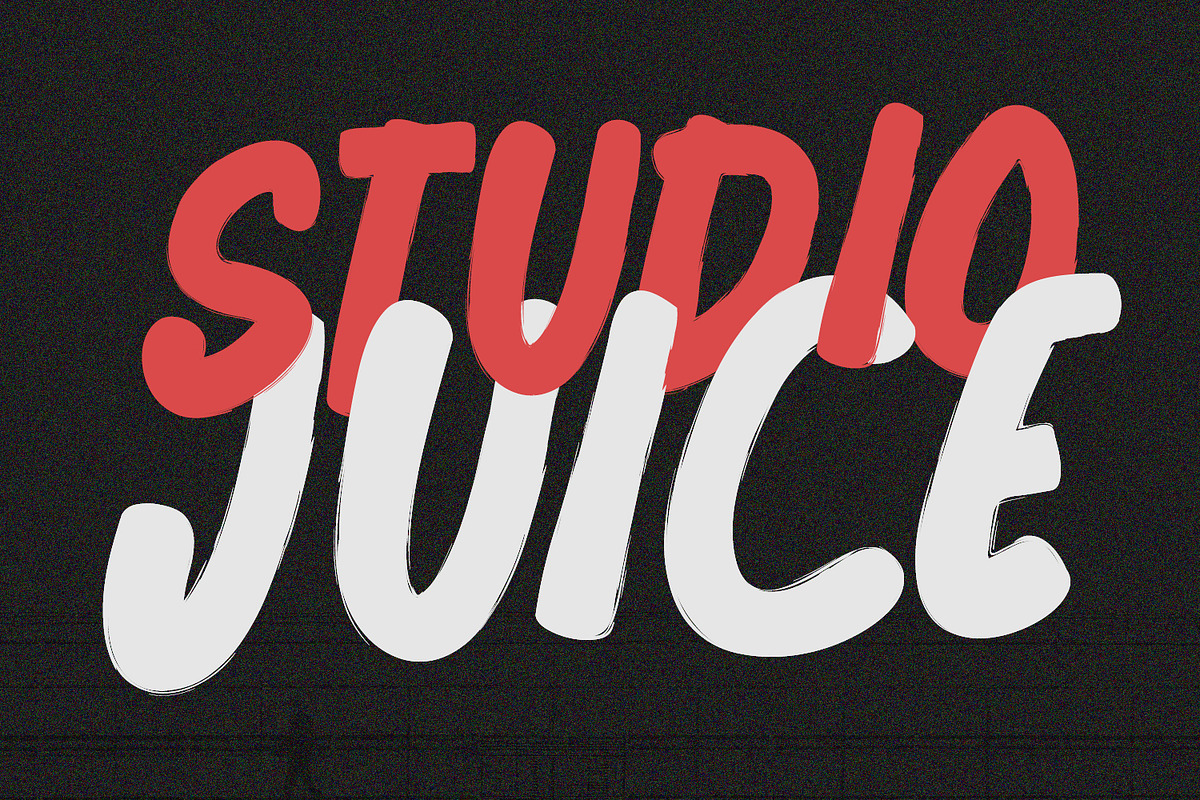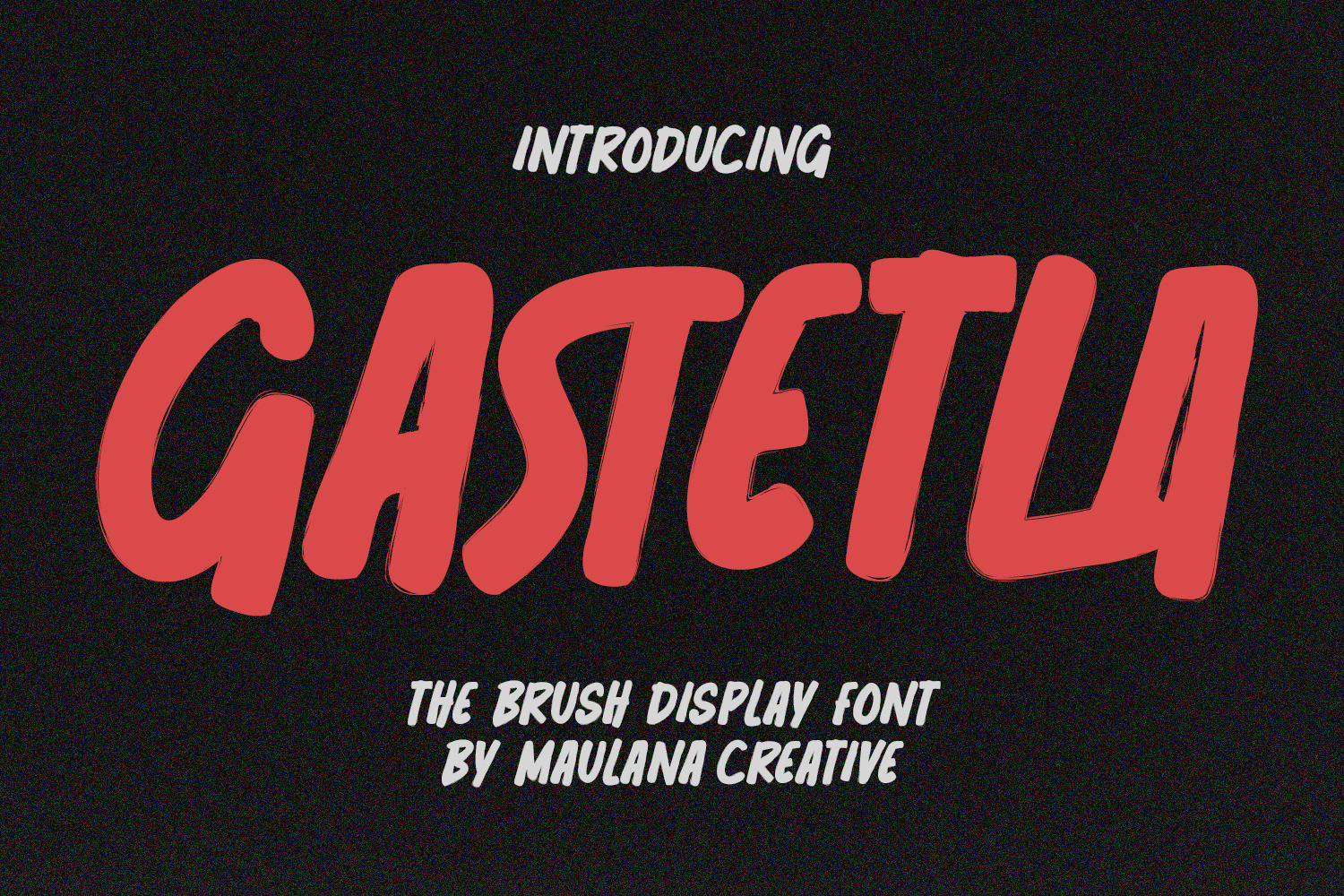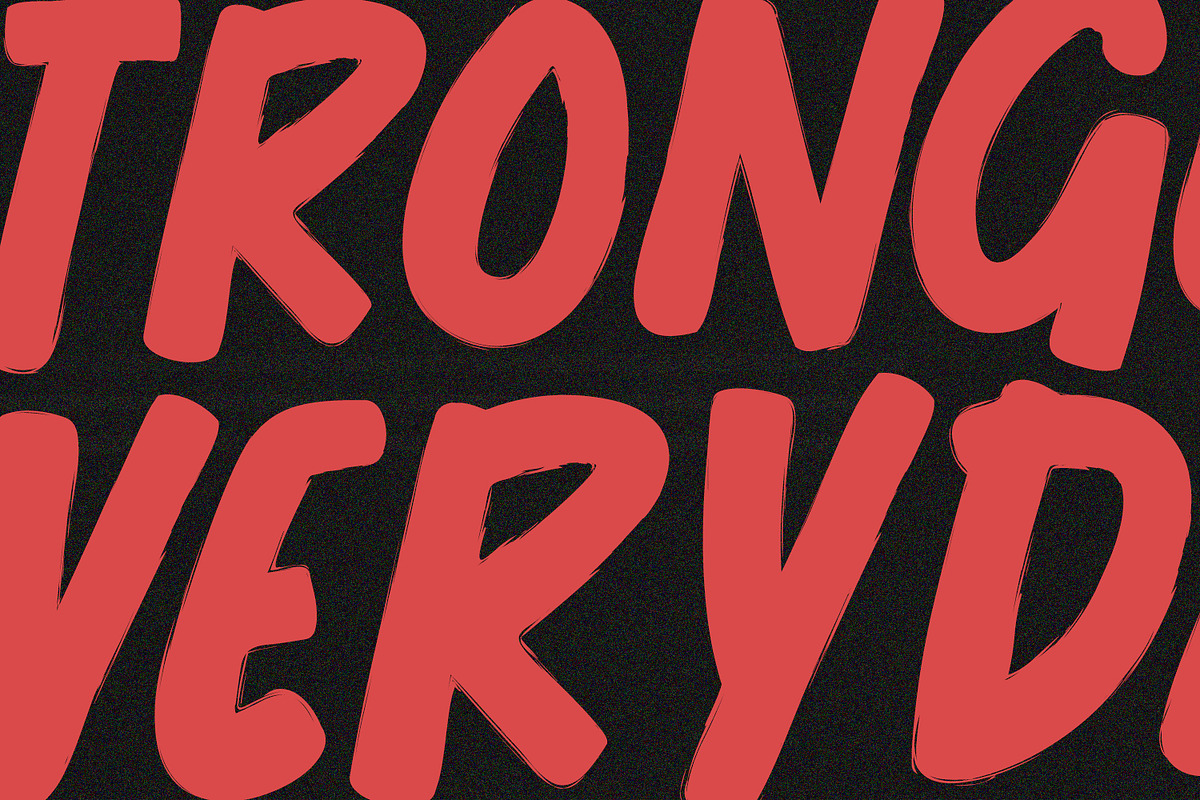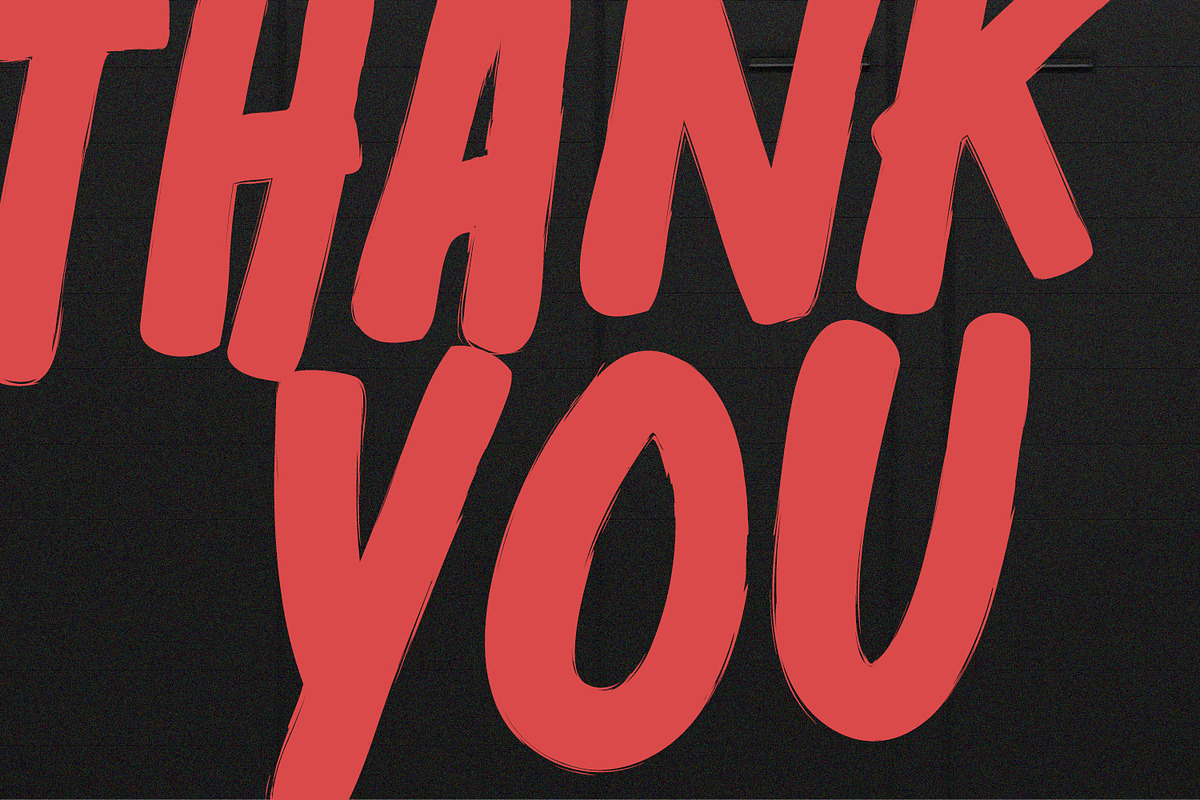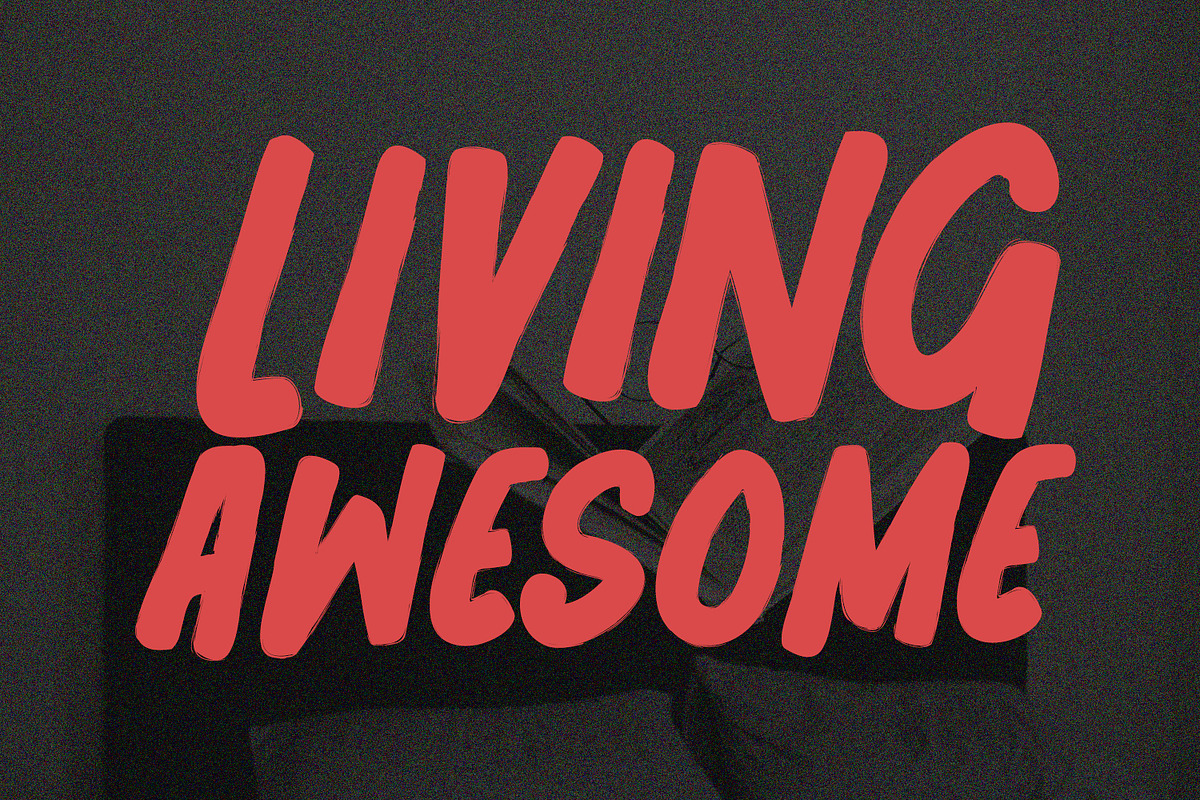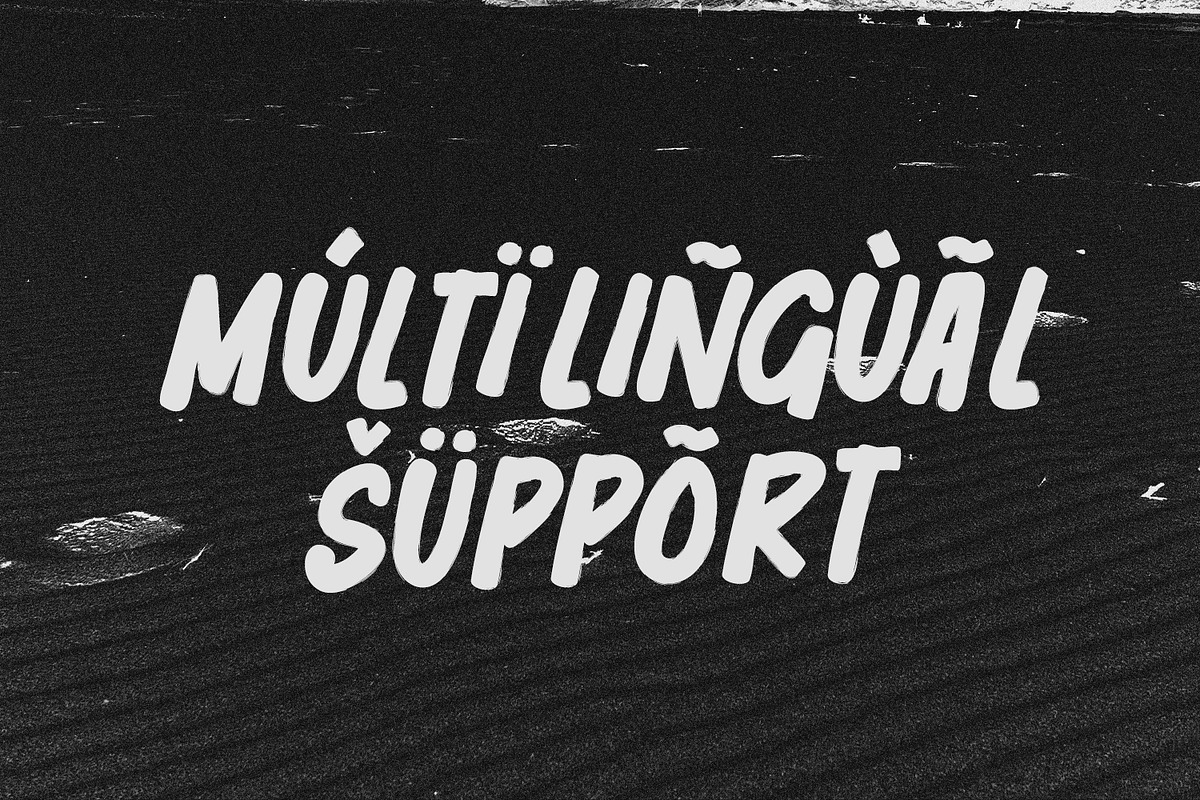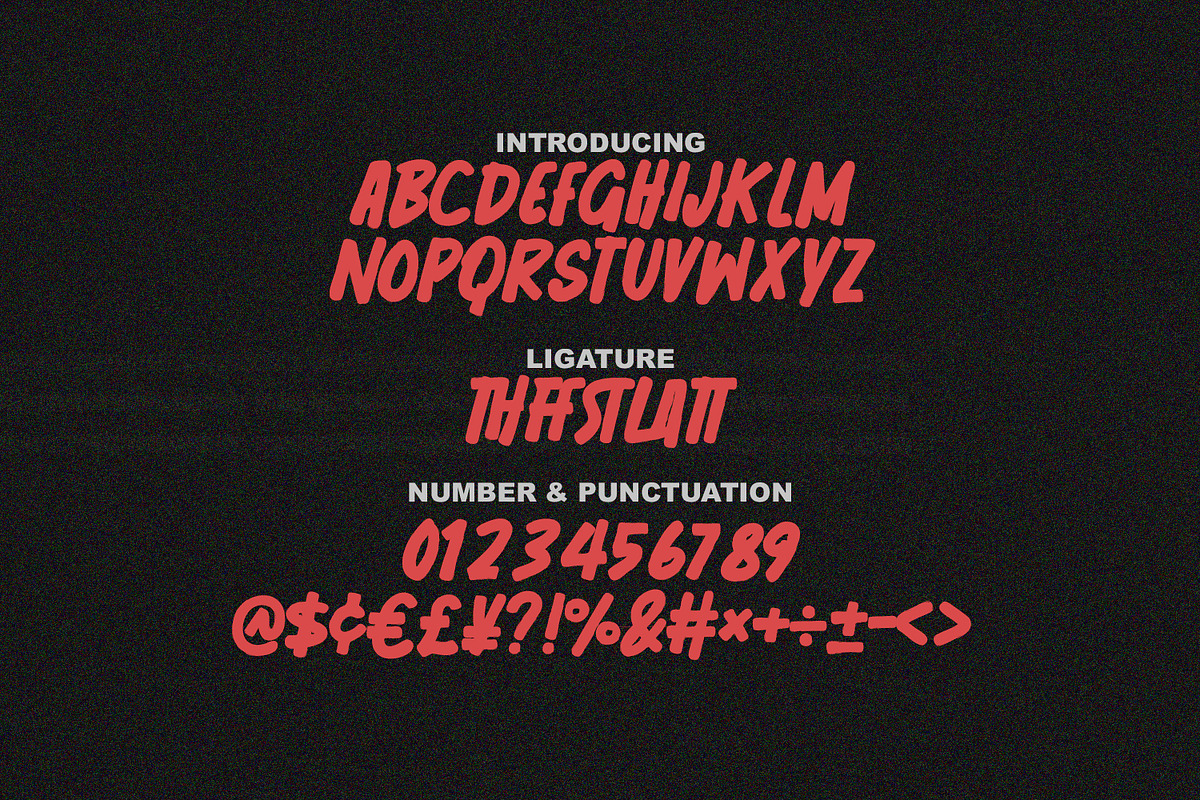
Gastetla Brush Display Font
Gastetla is a authentic brush handwritten font. With bold stroke, fun character with a bit of ligature. To give you an extra creative work. Gastetla font support multilingual more than 100+ language. This font is good for logo design, Social media, Movie Titles, Books Titles, a short text even a long text letter and good for your secondary text font with sans or serif. Make a stunning work with Gastetla font.